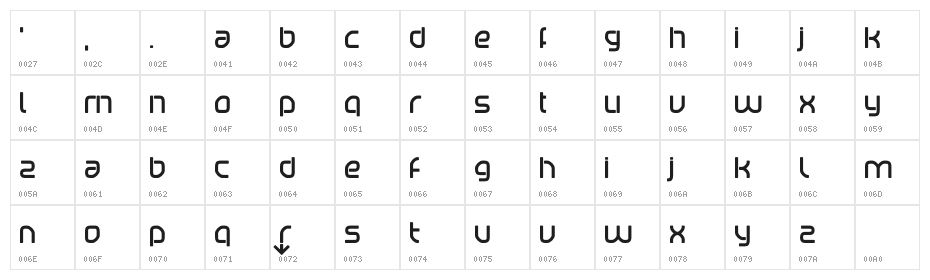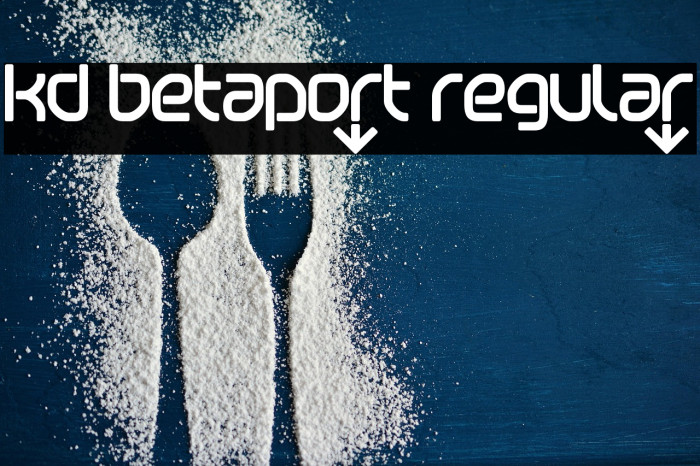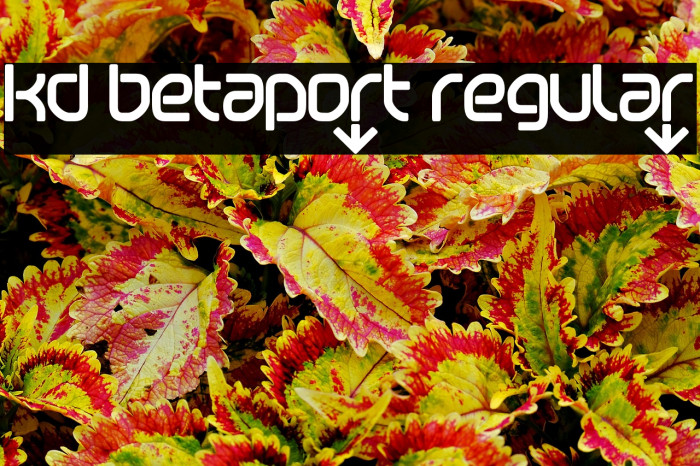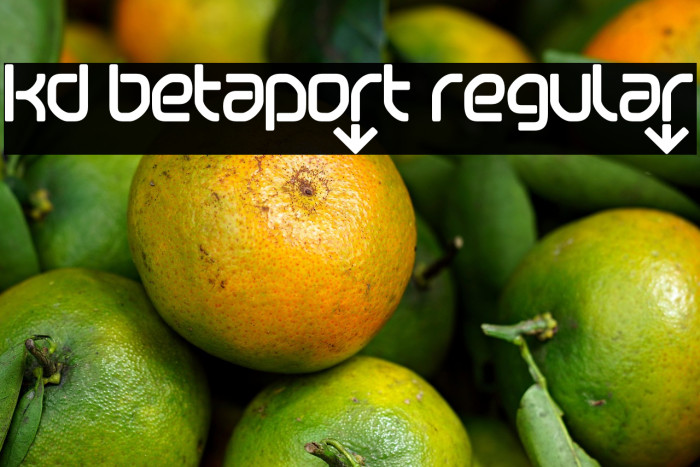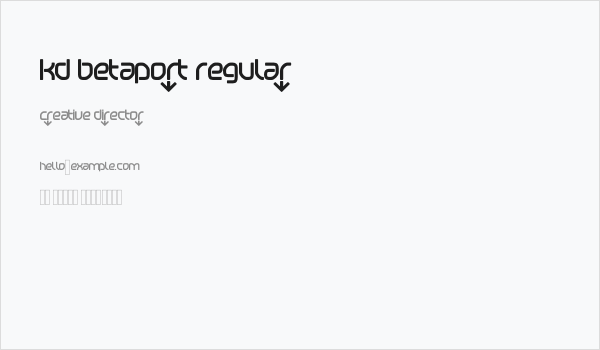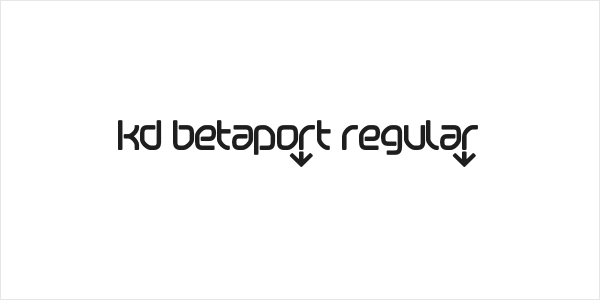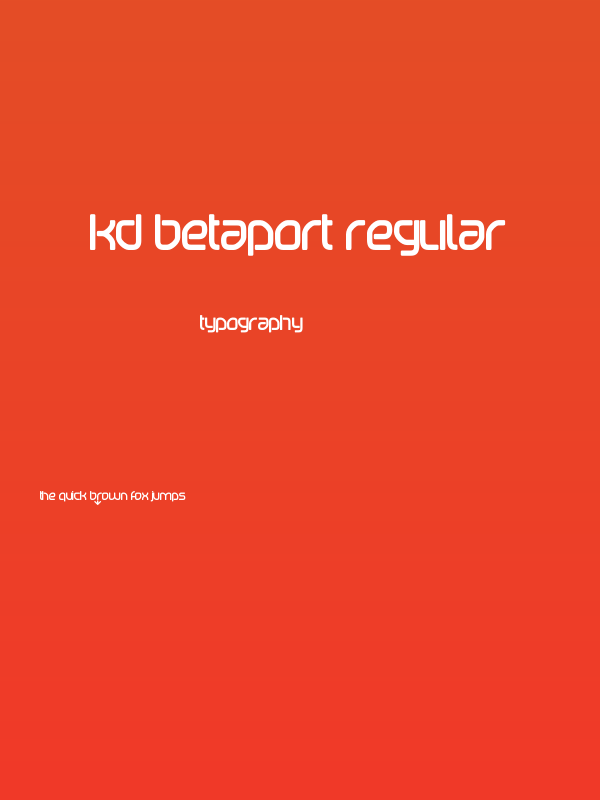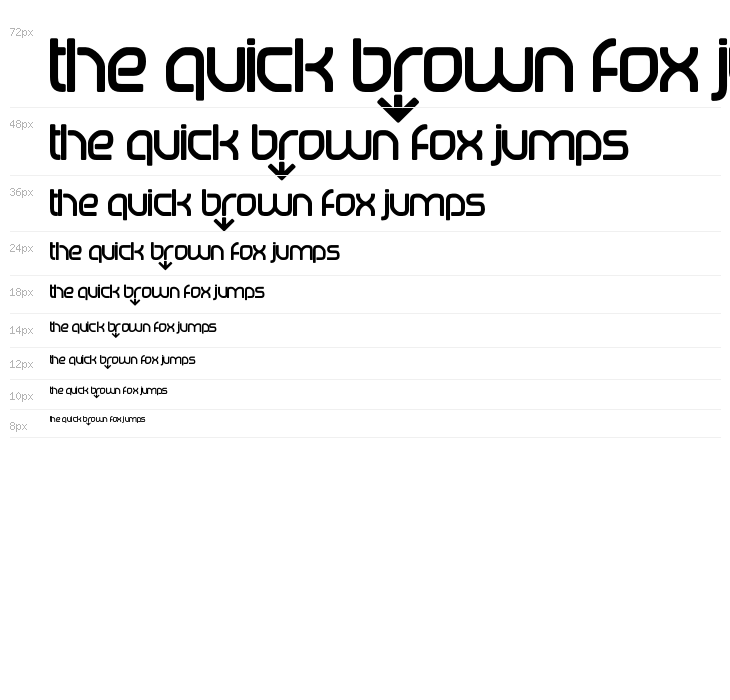
KD Betaport Regular Font
KD Betaport Regular Description
This font features a modern, geometric design with rounded edges and a consistent stroke width, creating a sleek and futuristic appearance. The characters are uniform in height, contributing to a clean and organized look. The font's structure is minimalistic, with a focus on readability and simplicity. The rounded corners soften the overall aesthetic, making it approachable and versatile for various design applications. The consistent stroke width ensures a balanced and harmonious appearance across all characters, enhancing its modern appeal.